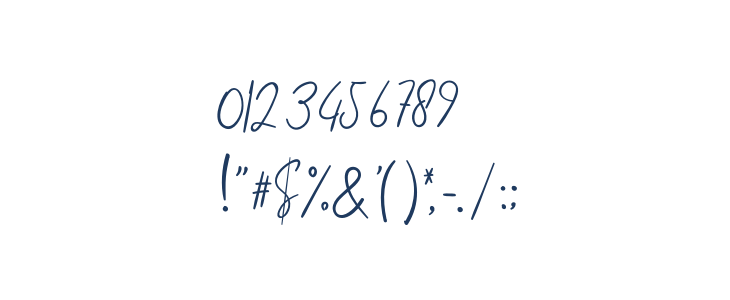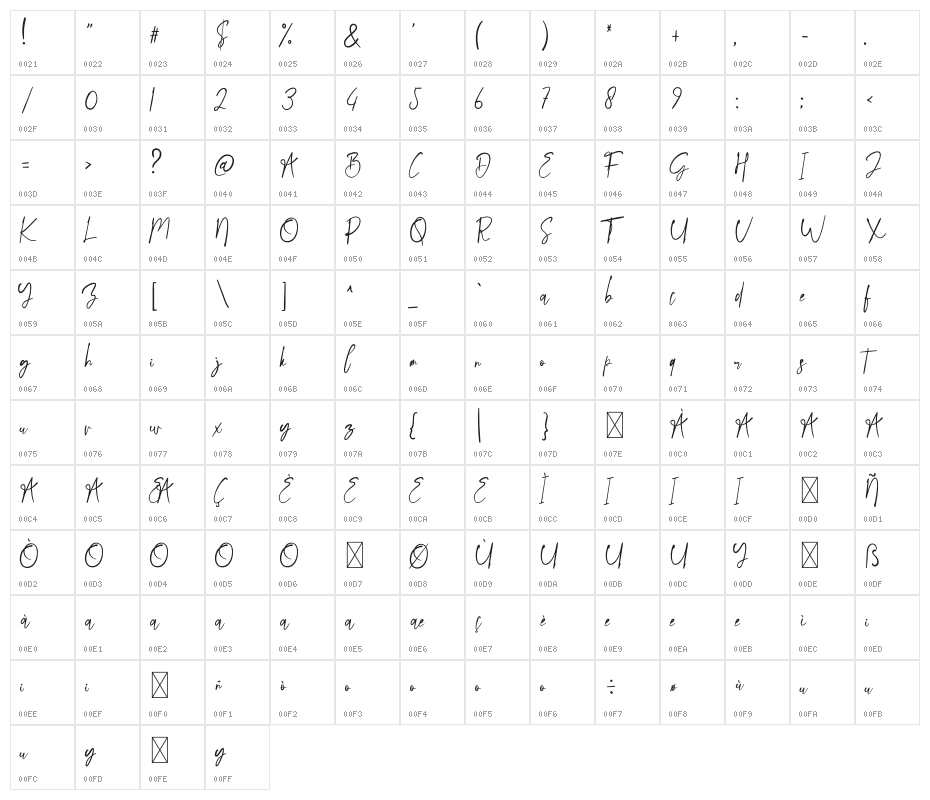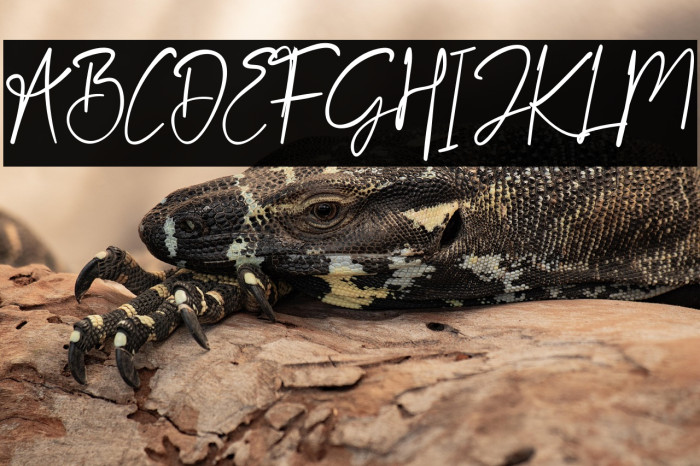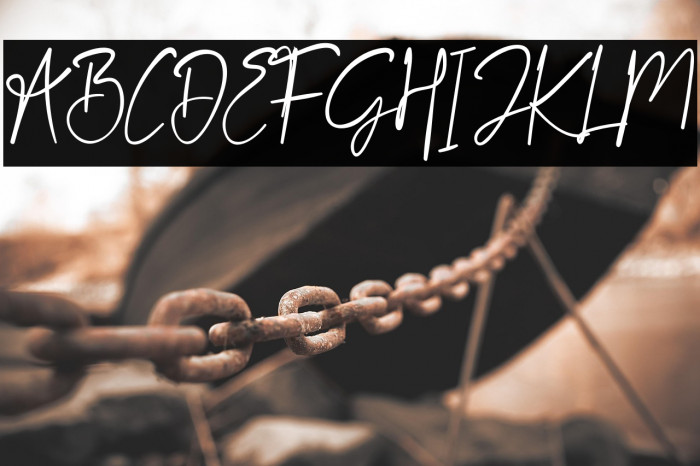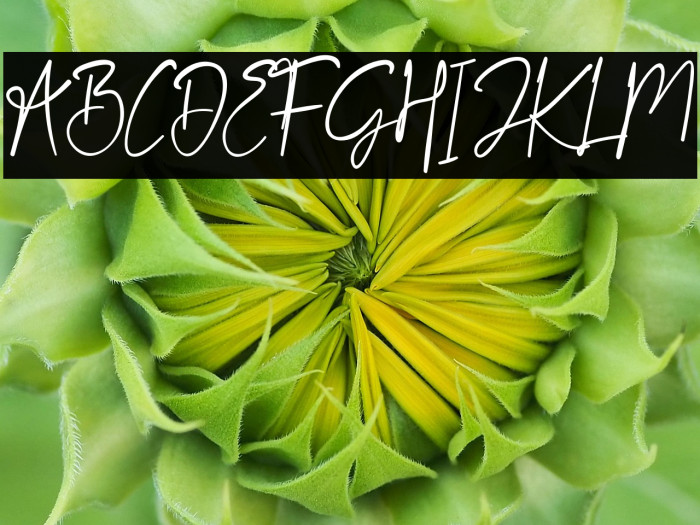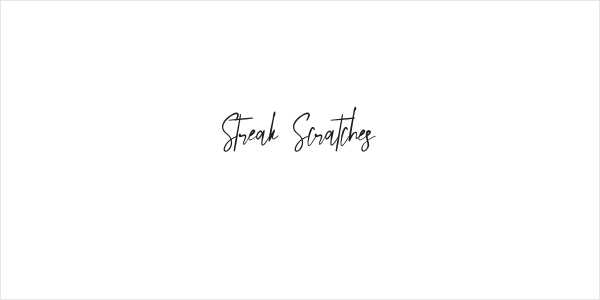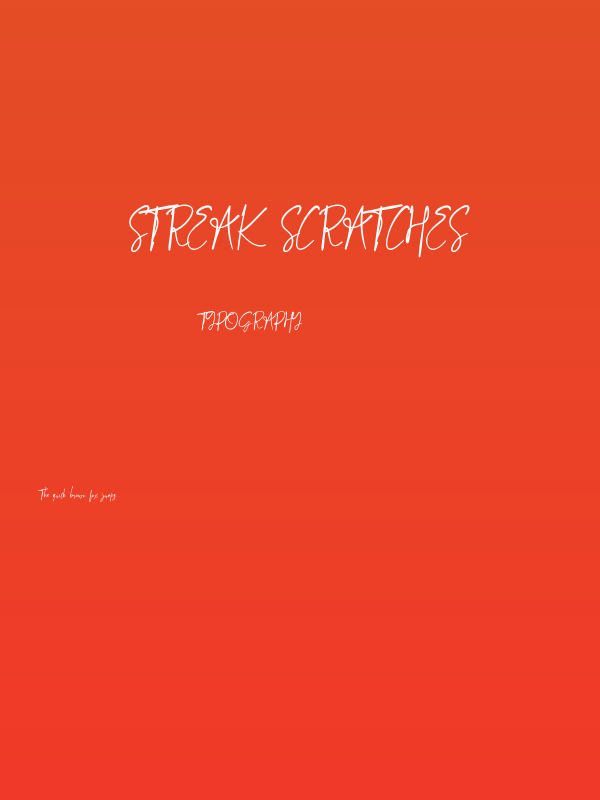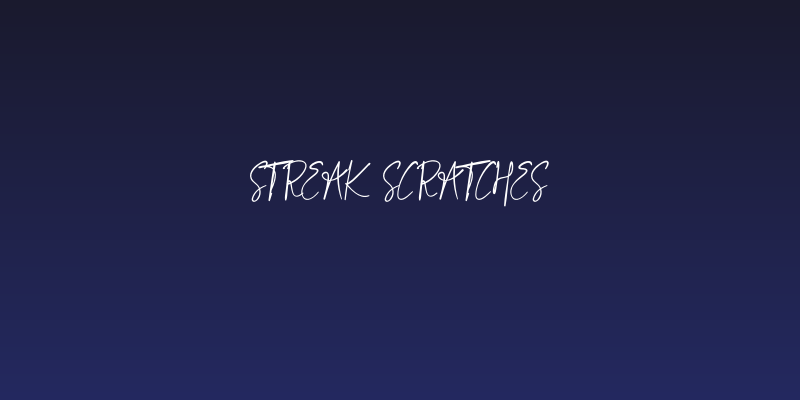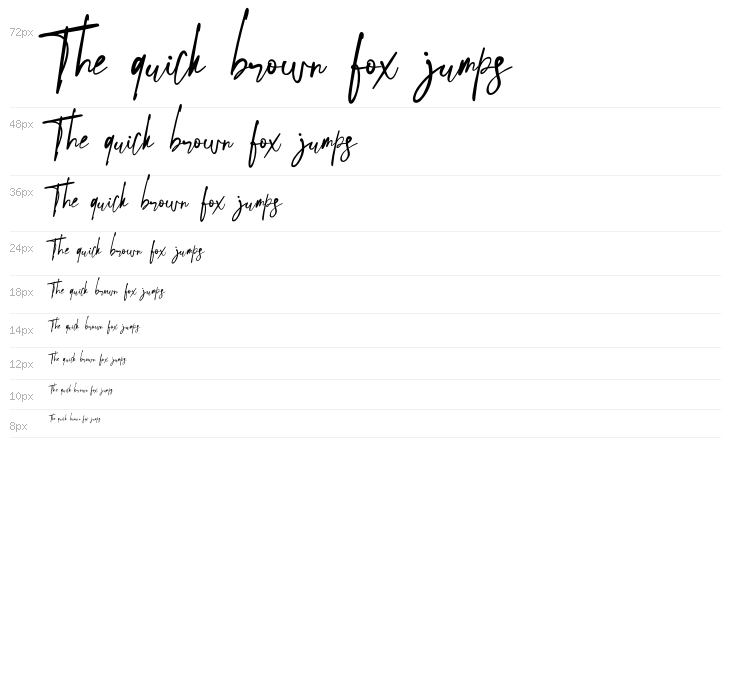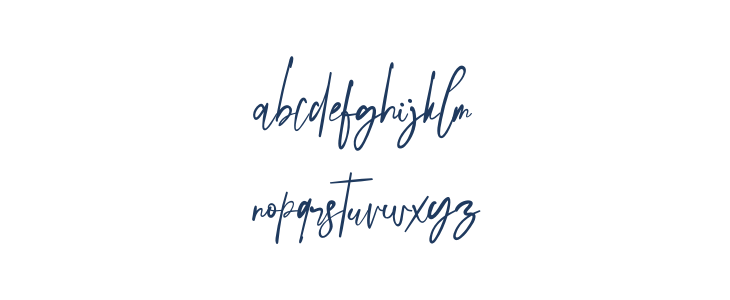
Streak Scratches Font
Streak Scratches Description
This font features a dynamic and energetic handwritten style, characterized by its flowing, cursive letterforms. The strokes are thin and elongated, giving it a sense of movement and elegance. The uppercase letters are bold and distinctive, while the lowercase letters maintain a consistent flow, enhancing readability. The numerals and special characters are crafted with the same attention to detail, ensuring a cohesive look across all elements. This font exudes a casual yet sophisticated vibe, making it versatile for various design needs.
Use CaseLogos, Invitations, Social Media Graphics
Proposed ProjectsIdeal for wedding invitations, personal branding, social media graphics, and creative projects that require a personal touch.